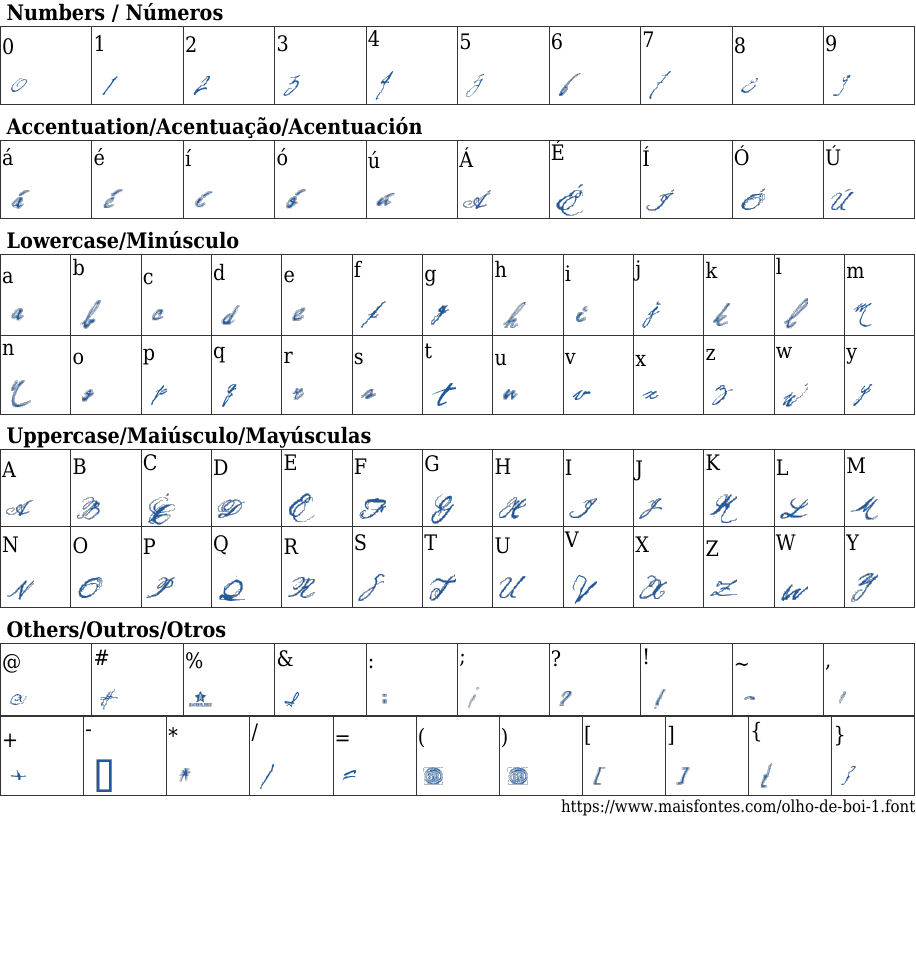
Web olho de boi is a free font for personal use created by billy argel. 23 people have liked olho de boi font and given it a thumbs up. Votes, rated based on results identification.
Web olho de boi font is a tattoo font and was created on jan 19, 2011. Download free for desktop & webfont. Truetype 135 glyphs 224 characters. Web olho de boi is a grunge type of font.